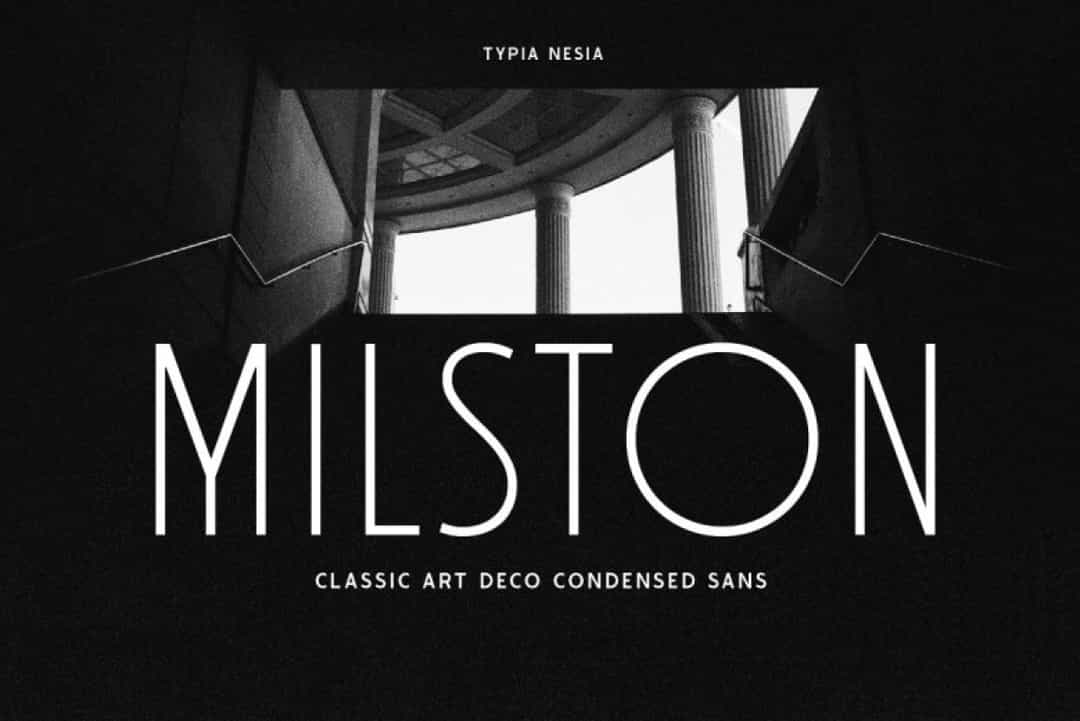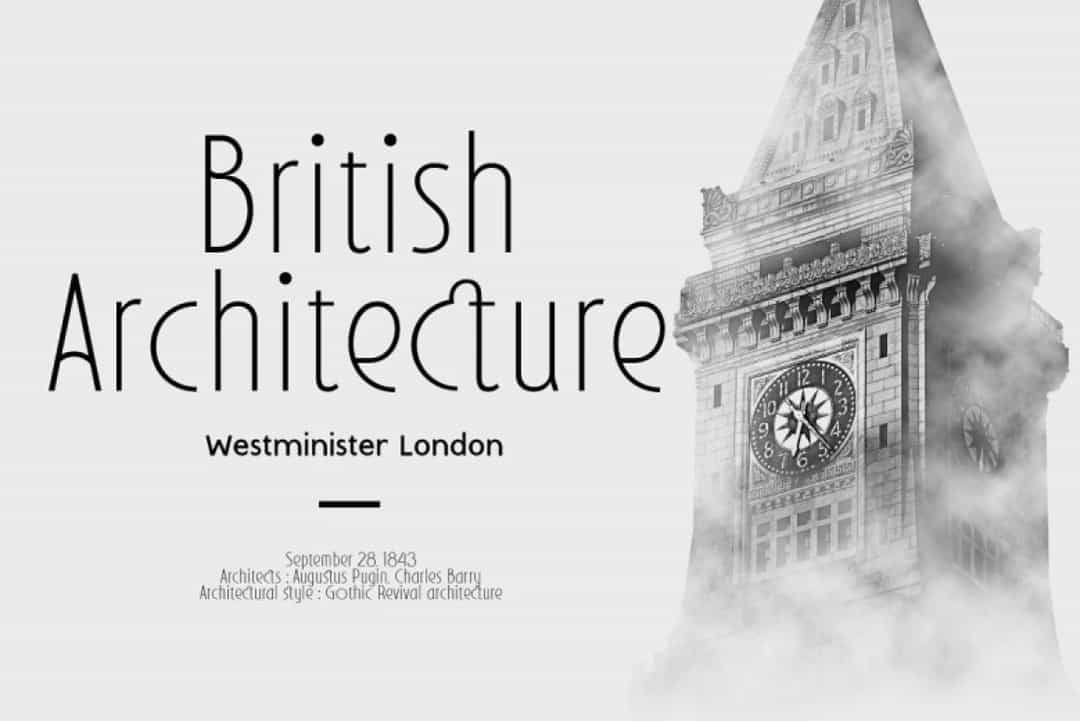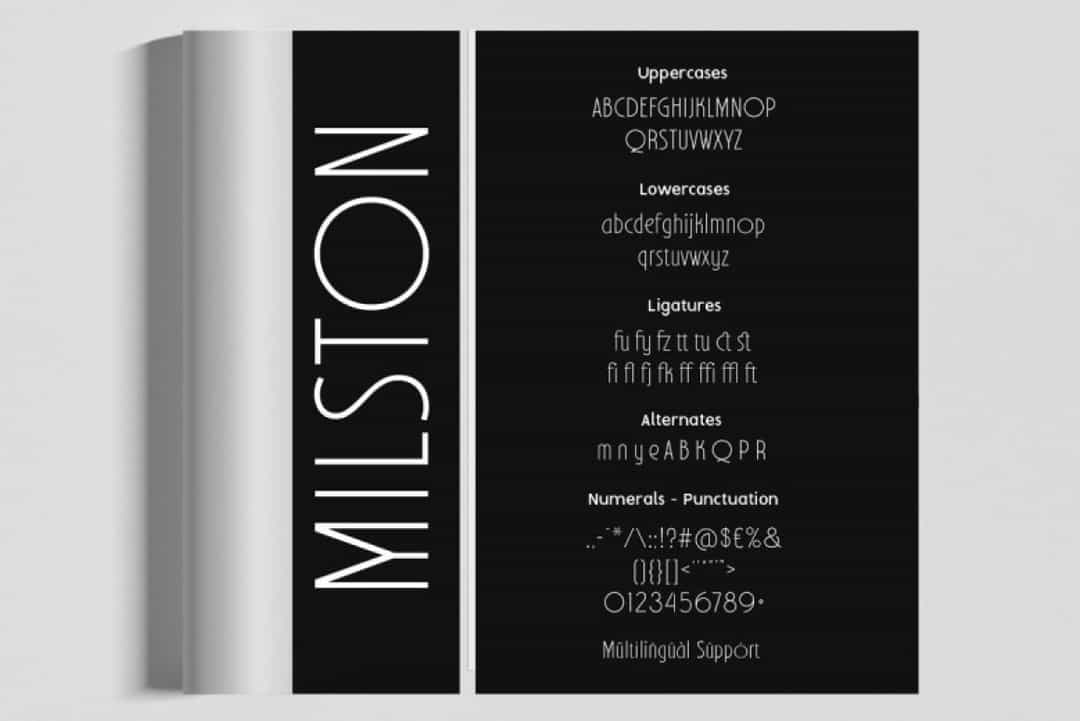
Milston Classic Art Deco Condensed Sans Serif Font is an ideal vintage architecture font. Milston font is suitable for any project involving luxury logo and branding, elegant style editorial designs for women magazines cosmetic brands, fashion-related promotional branding for art galleries museums boutique branding designs for blogs stationery Modern advertising design card invitations art quotes titles for books/covers special events etc and can even make great covers of books!